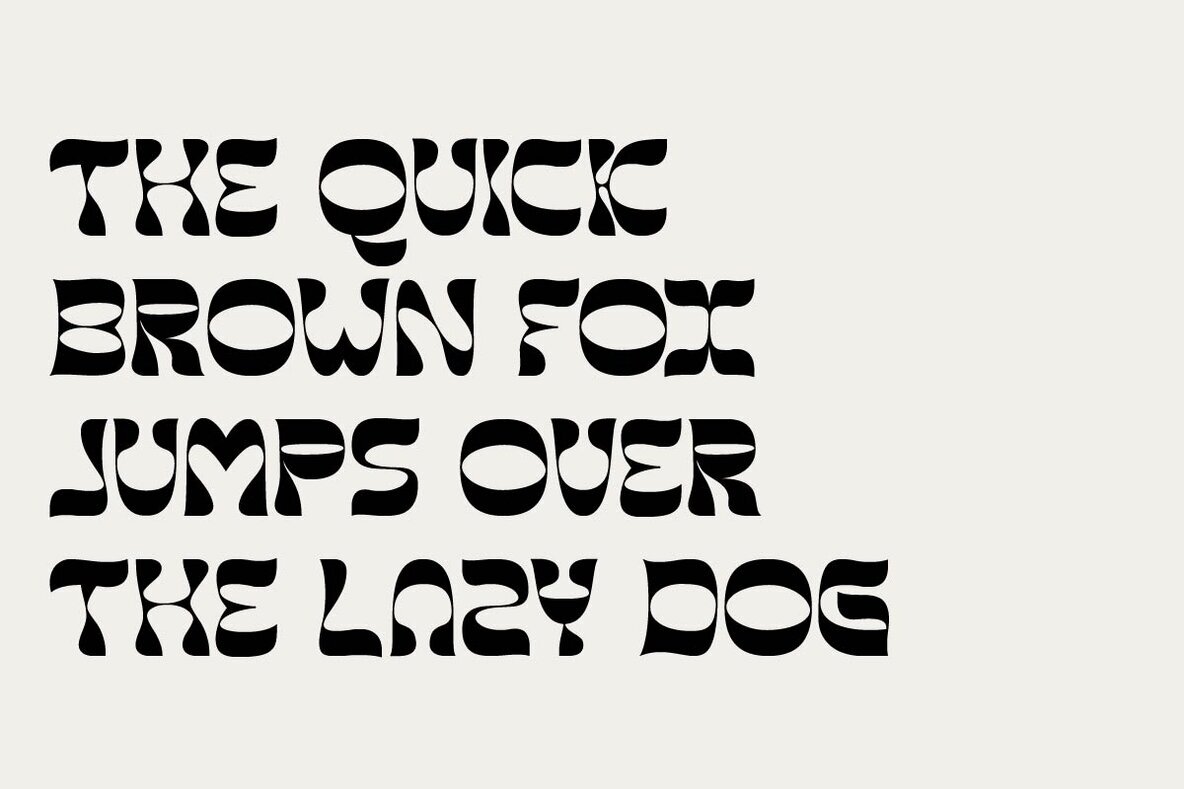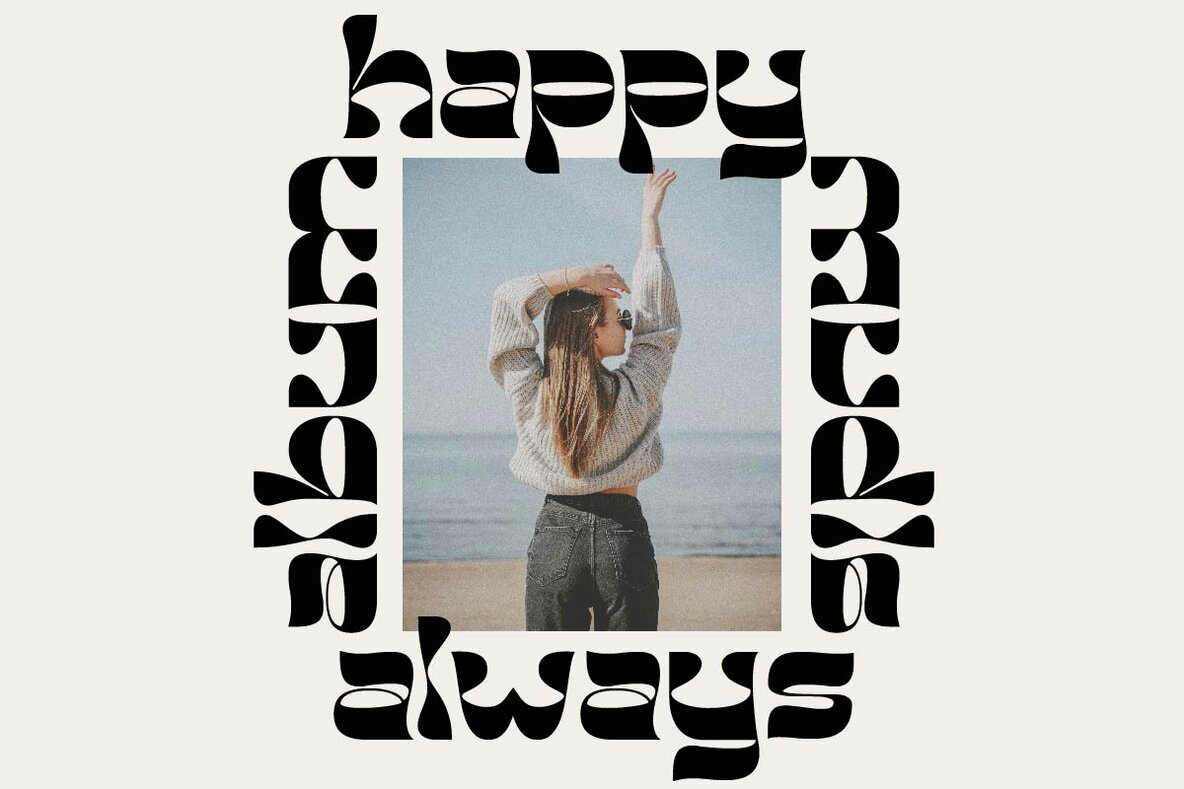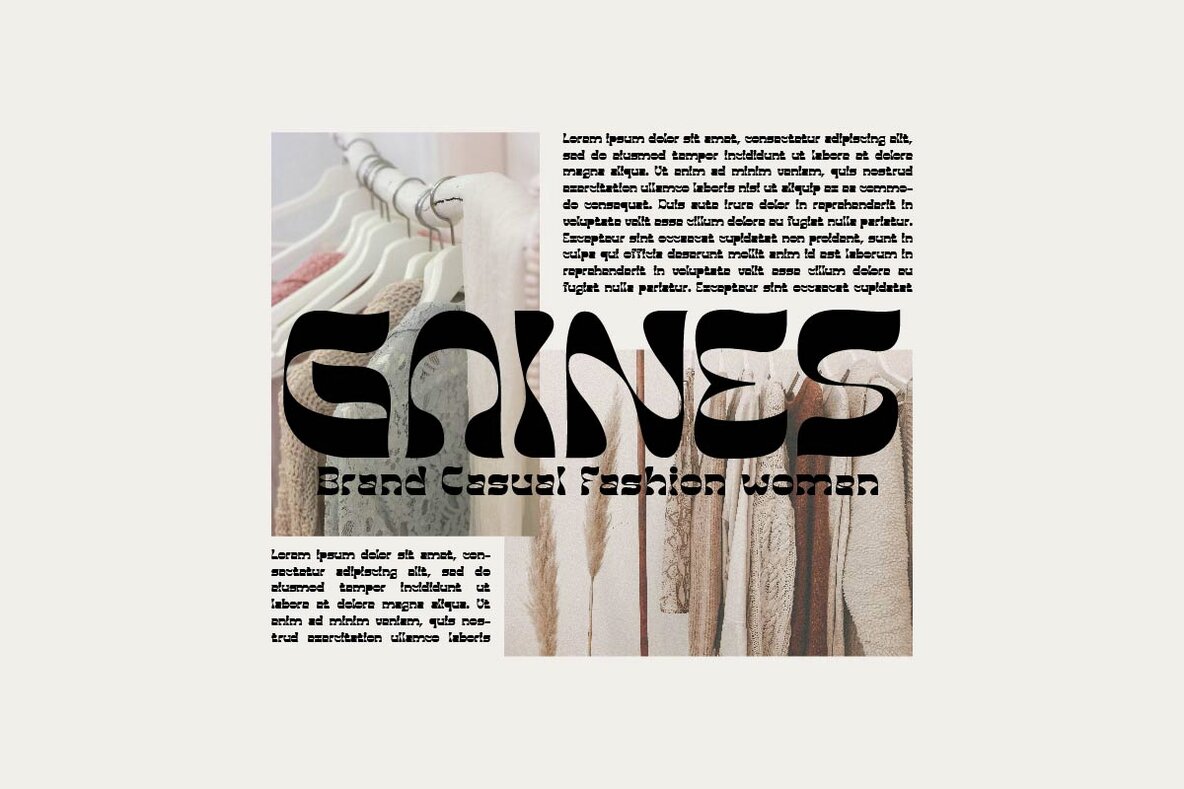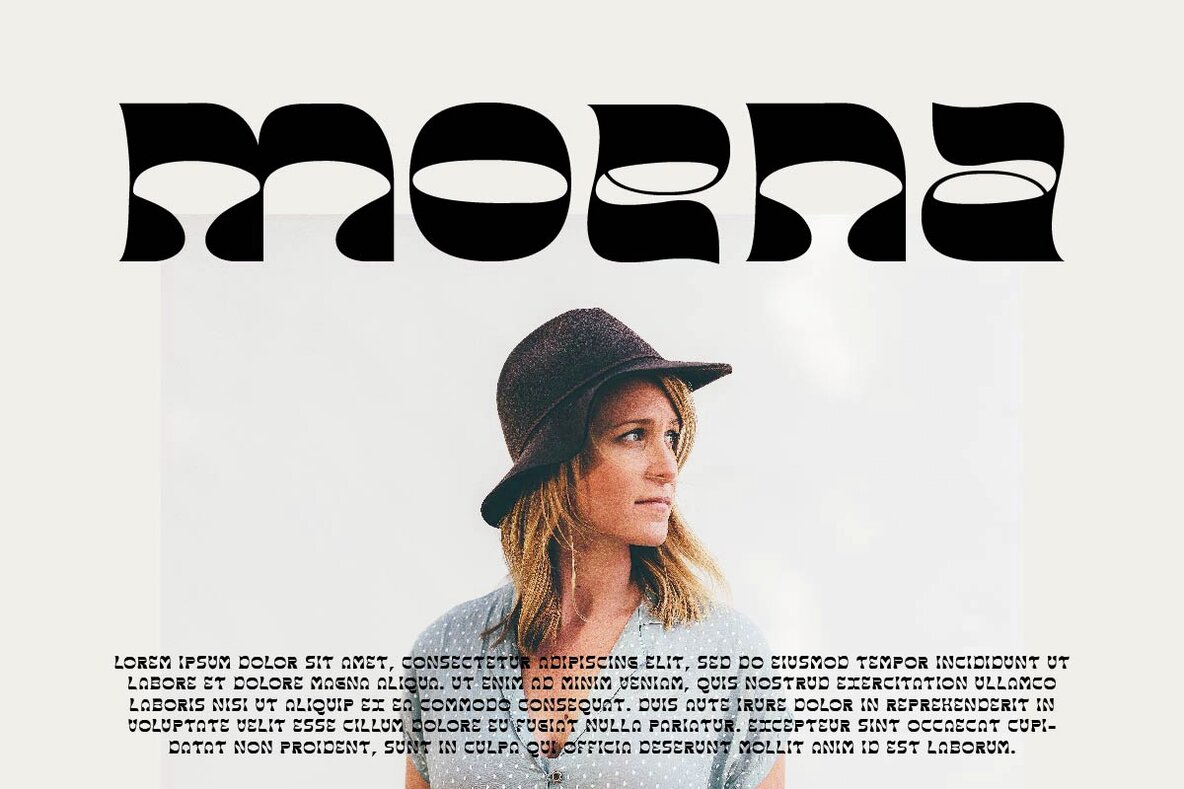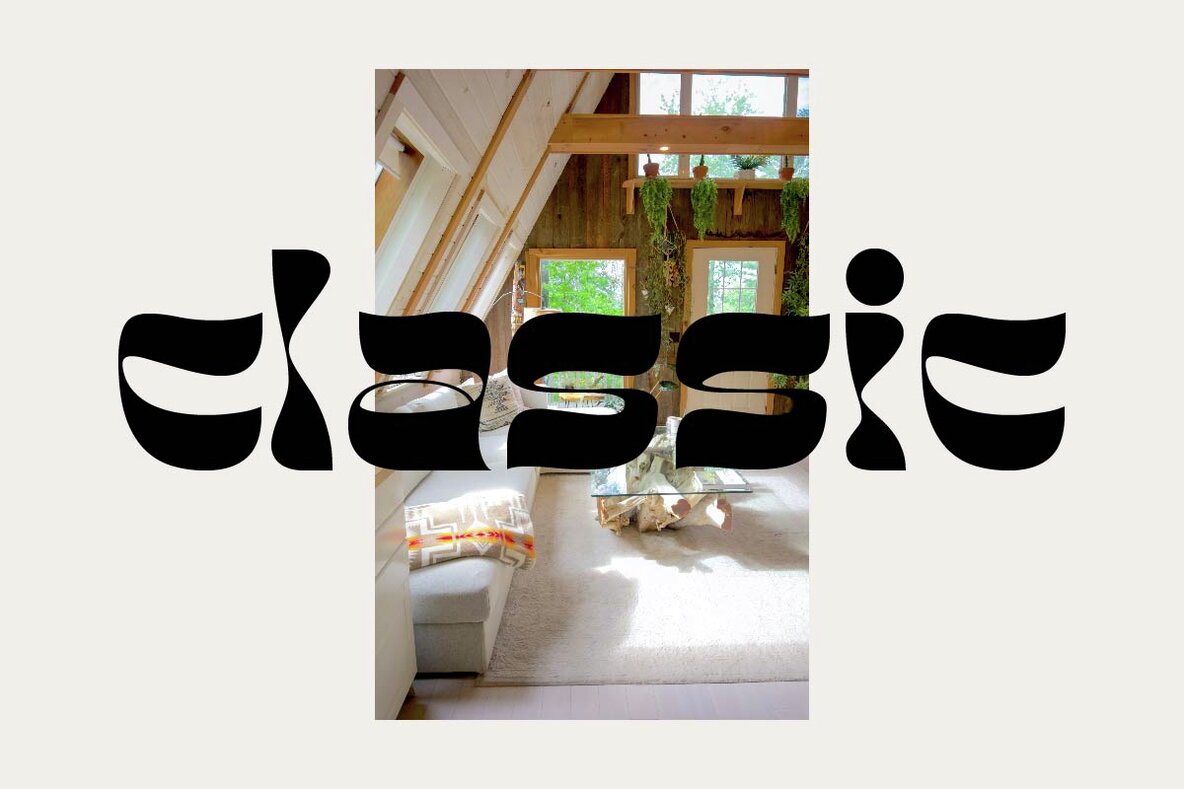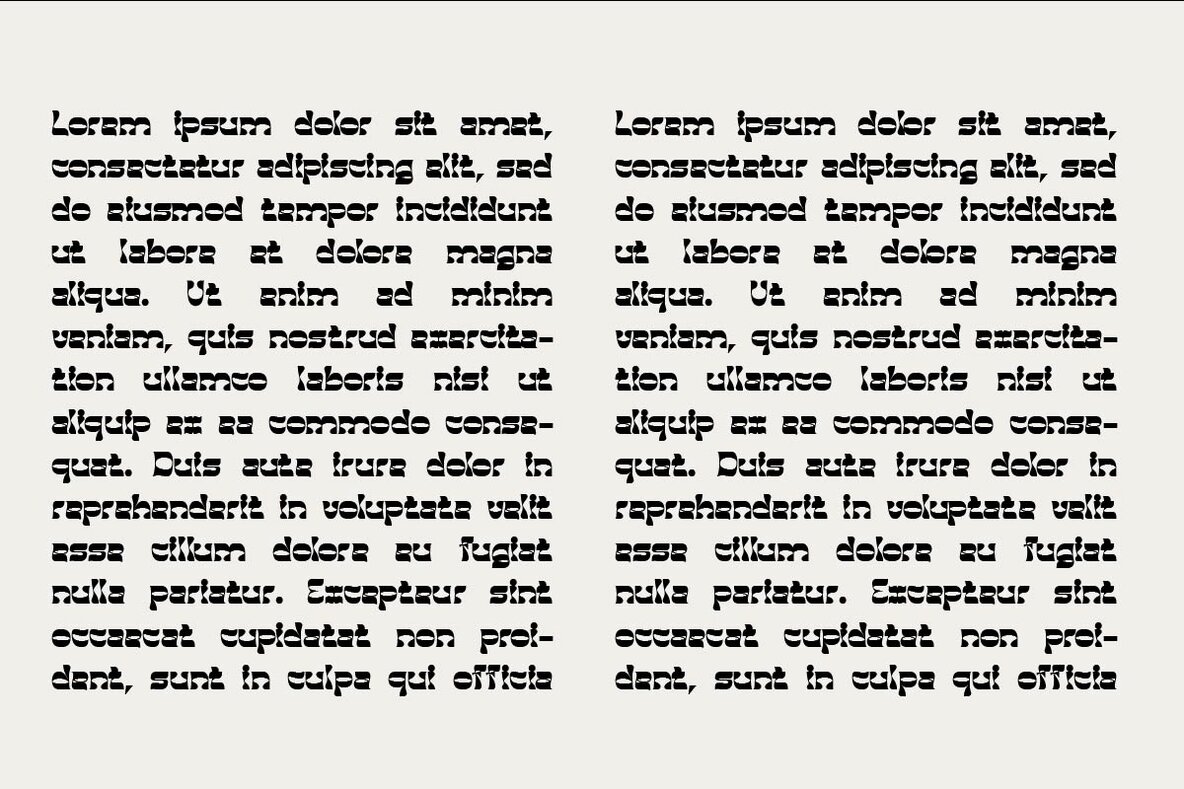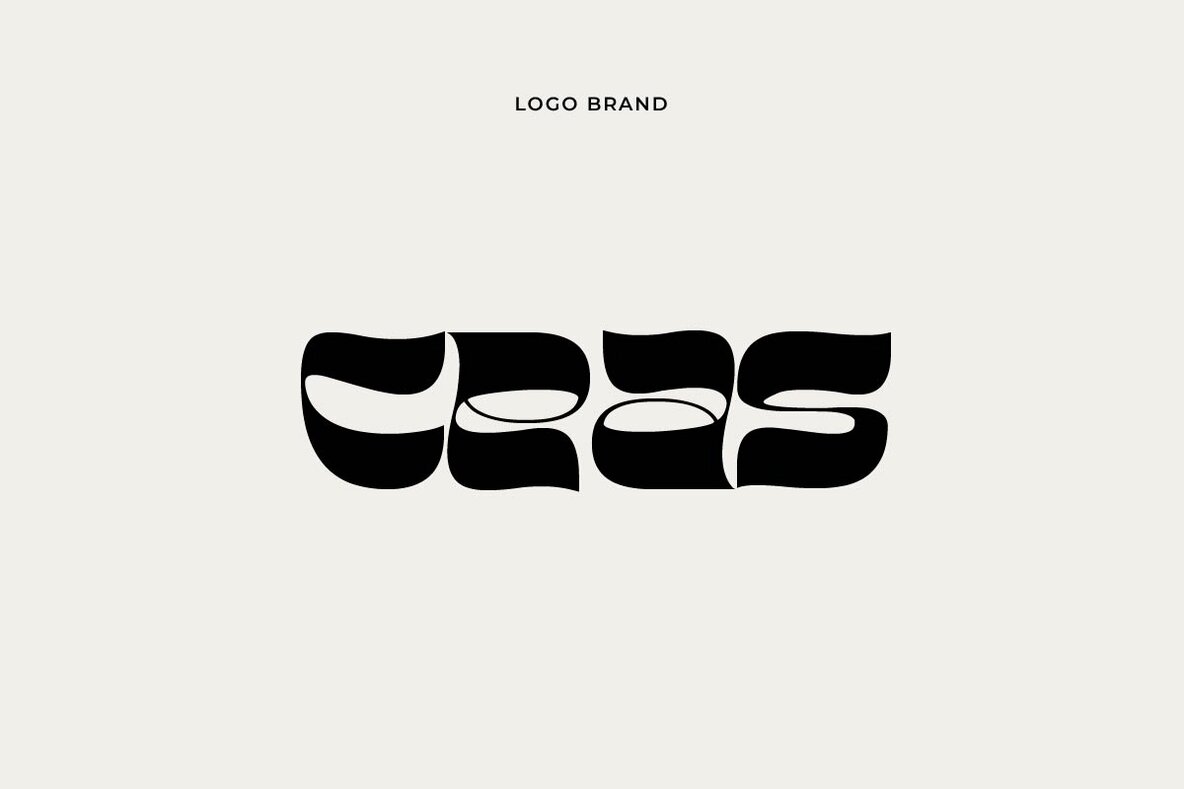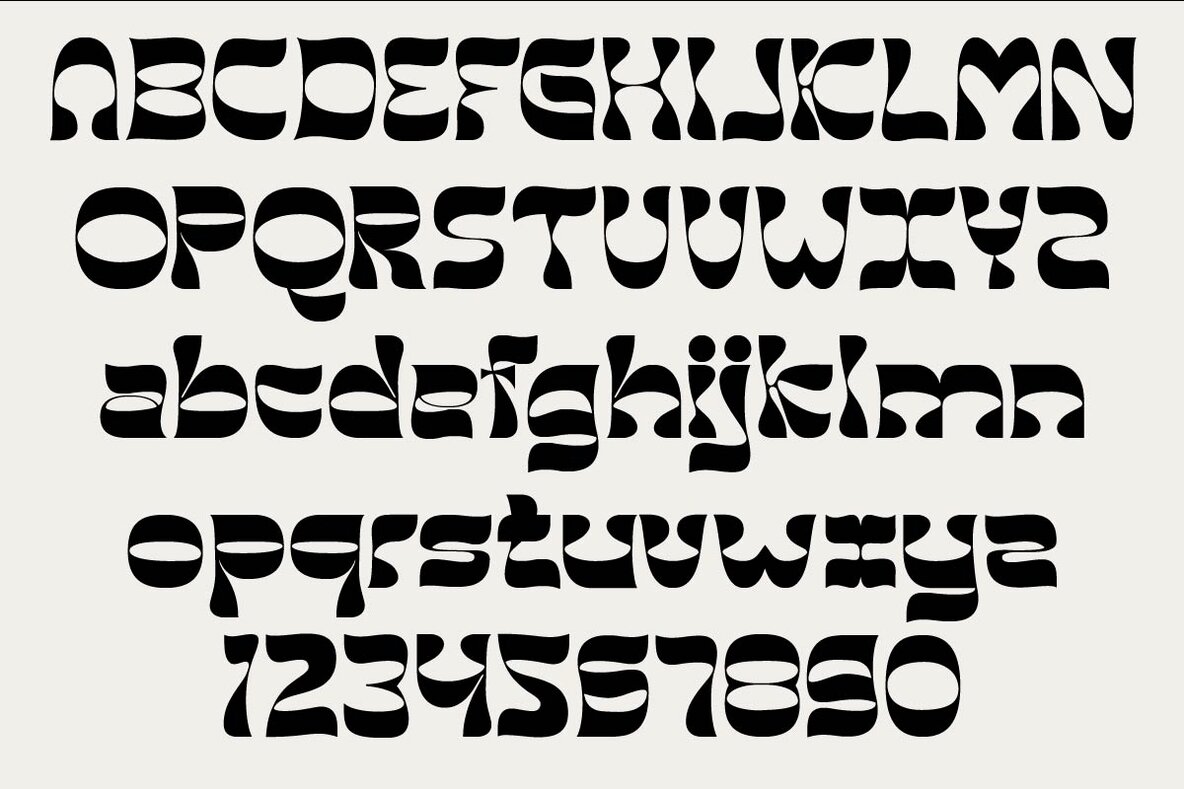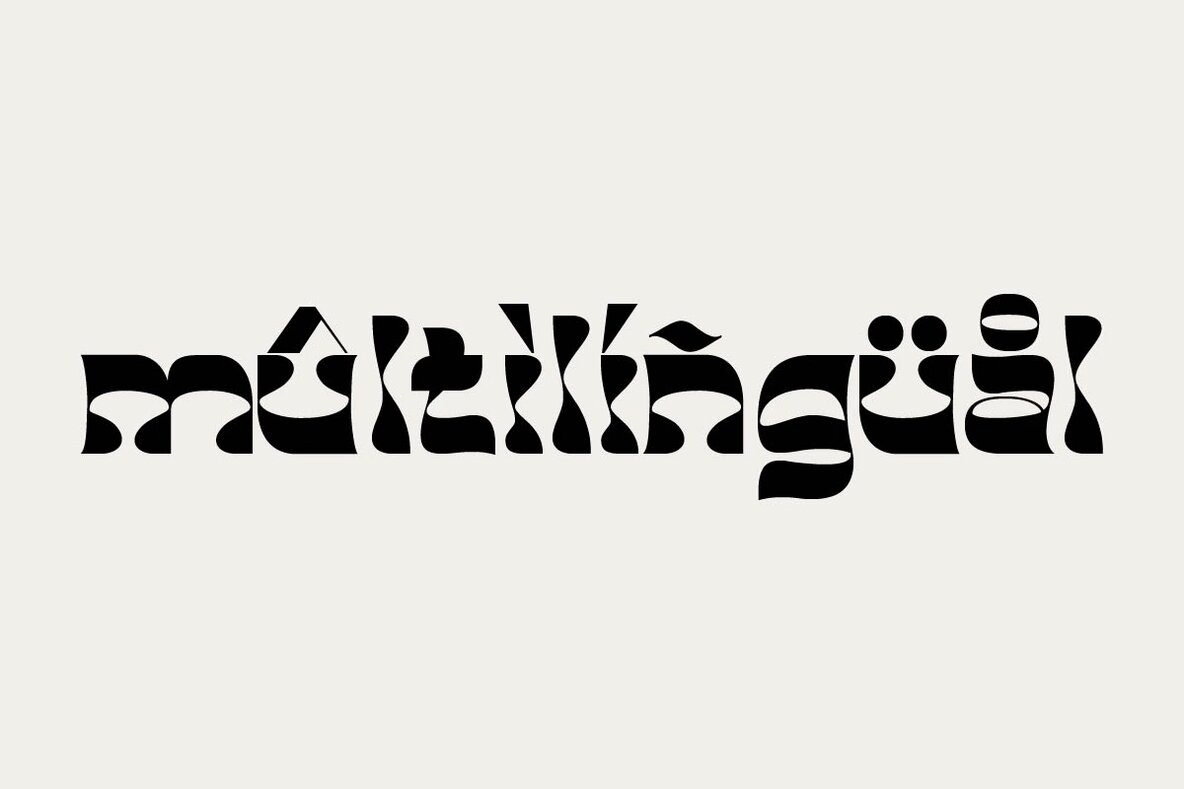
Dashie Font
Dashie Regular
The "Dashie" font is a captivating modern display typeface with a strong feminine touch. Designed with a blend of retro and vintage elements, this font carries an elegant and alluring vibe. Dashie boasts smooth lines while still exuding gracefulness. Each letter possesses a unique form, with soft contours and slightly curved angles, delivering a sense of sophistication and timelessness. This font is exceptionally fitting for creating feminine branding logos due to its gentle yet powerful characteristics. When integrated into designs, Dashie has the ability to infuse a classic touch of retro or vintage, emanating an aura reminiscent of the past yet maintaining a fresh and modern feel. Dashie is the perfect choice for crafting a visually captivating and memorable identity for brands seeking to stand out with an elegant, feminine style, while incorporating retro or vintage nuances into their brand. Features:
Lowercase and Uppercase
Numerals & Punctuation
Accented characters
Multiple Languages Supported